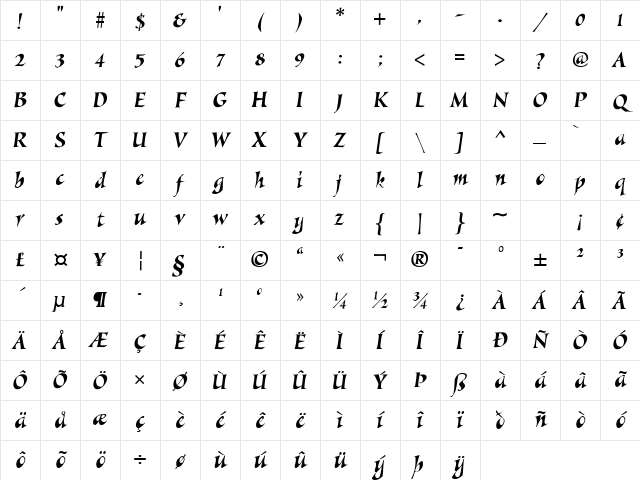
Complete AIAlexia Italic glyph index. Displaying only characters natively supported by AIAlexia Italic font.
AIAlexia is a composed and adaptable typeface that performs quietly and consistently across a wide range of design contexts. The slanted form adds forward momentum and visual energy.
Pro Tip: Use AIAlexia for emphasis, pull quotes, and subheadings where its slanted energy can add rhythm to the layout.